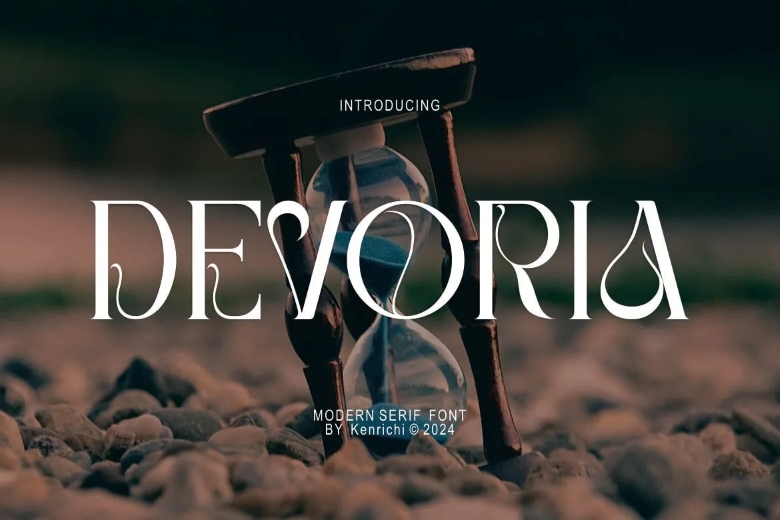
Dovaria Font
Dovaria Font is quite appropriate for such an approach as it can be described as a modern and authentic font. Ideal for professional and branding purpose of any brand of a product.
This font is great for the branding project such as quotes, logo, blog header, poster, banner, letter, invitation, stationery, etc Printing out as an attractive and a universal tool applicable to various projects and media. outstanding in almost every situation that one can perceive.
Dovaria Serif Font